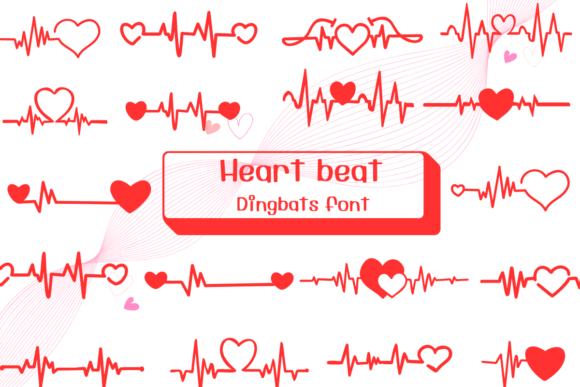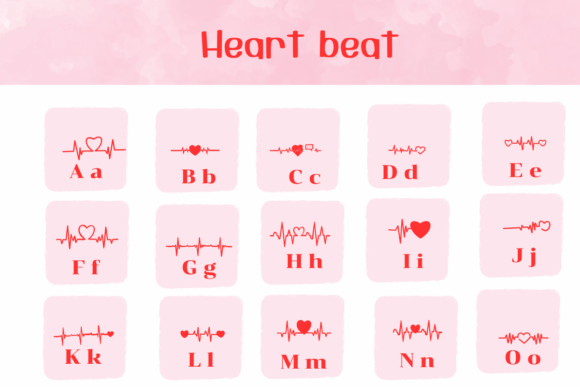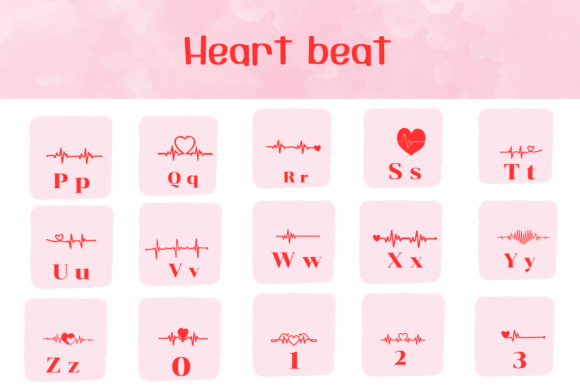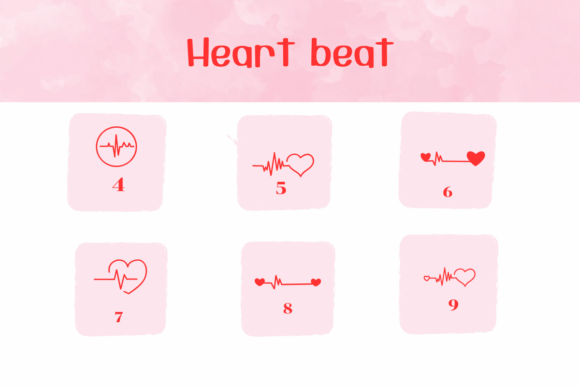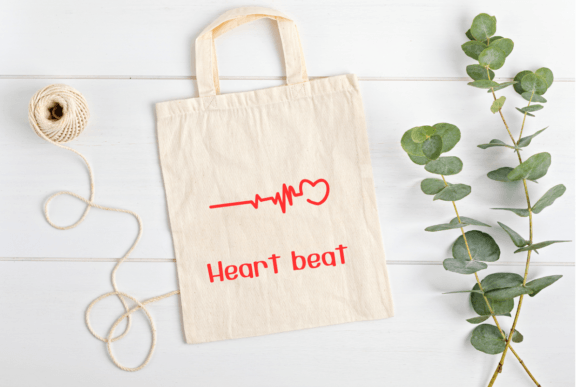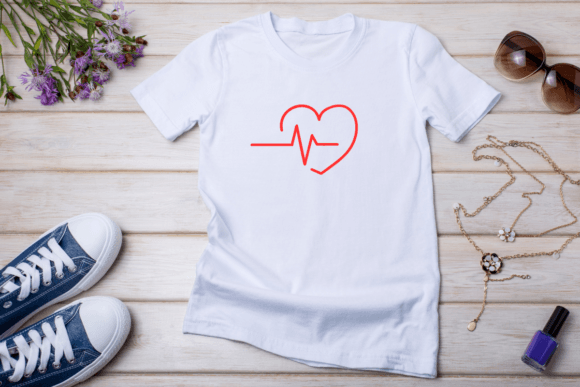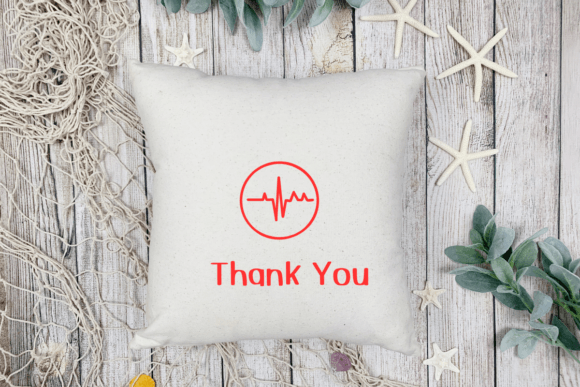
Where Creativity Meets Romance
As you sit at your desk, surrounded by scraps of paper, glitter, and half-finished projects, you get that spark of inspiration – the perfect idea for a wedding invitation or a DIY decoration. You envision a beautiful, whimsical design that captures the essence of love and romance. But, how do you bring that vision to life?
Enter the Heart Beat Font, a charming dingbats font designed to add a touch of romance to your creative projects. This font is more than just a set of characters – it’s a tool that can elevate your designs and make them truly special. With its beautiful, hand-drawn hearts and delicate flourishes, the Heart Beat Font is a must-have for designers who want to create unique and memorable pieces.
Key Features of “Heart Beat Font”
- Unique Characteristics: The “Heart Beat Font” features a unique blend of modern and vintage elements, with intricate details and flourishes that give it a distinctive, hand-crafted feel.
- Script and Language Support: The font supports a wide range of languages, including Latin, Cyrillic, and Greek scripts, making it suitable for global branding and design projects.
- Kerning and Ligatures: The “Heart Beat Font” includes advanced kerning and ligature pairs, ensuring that text sets are visually appealing and well-spaced, even at smaller font sizes.
- Vector Graphics: The font is built using vector graphics, allowing it to be scaled up or down without losing any quality or clarity, making it ideal for use in logos, icons, and other high-resolution applications.
Heart Beat Font Review
As a designer, I’ve had the chance to work with a wide range of fonts, and the Heart Beat Font is definitely a unique one. I’ll break down what I think works well and what doesn’t.
- The font’s playful, energetic vibe is perfect for projects that need a touch of whimsy.
- The varied line weights and styles make it versatile for use in headers, titles, and even body text.
- The font is well-suited for digital use, with clear, readable characters at various sizes.
- The font’s complexity can make it difficult to pair with other fonts, especially those with more subtle styles.
- The lack of a true italic or oblique style can limit its use in certain contexts, like academic or formal writing.
- The font’s energetic feel can be overwhelming if used too extensively.
Overall, I think the Heart Beat Font is a great choice for designers who want to add some personality to their projects. While it may not be suitable for every project, its unique energy and versatility make it a great addition to any font library.
Tips for Getting the Most Out of Heart Beat Font
To get the most out of Heart Beat Font, use it to create eye-catching headlines and titles. You can also use it to add a touch of personality to your branding and marketing materials.
Heart Beat Font is commonly used in creative and marketing projects, such as:
– Social media graphics and ads
– Event invitations and flyers
– Branding and logo design
– Print materials, such as business cards and brochures